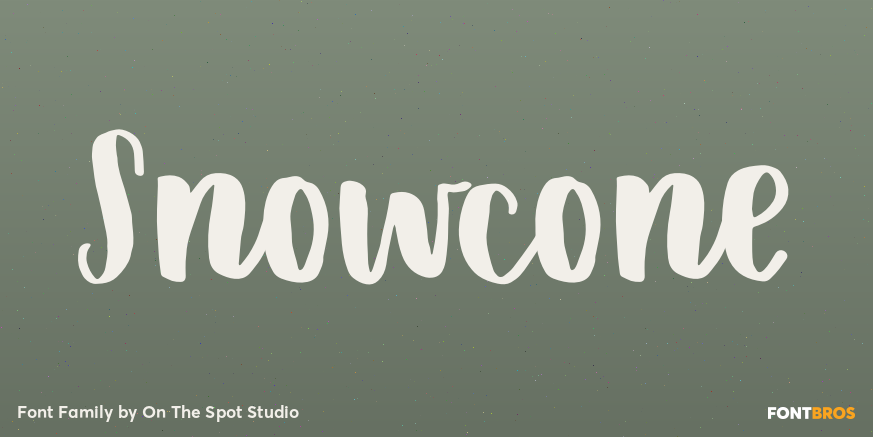
HomeFont BrosScripts: CasualSnowcone Scripts: Casual Snowcone FacebookXPinterestWhatsApp 1 of 1 About Snowcone Display and Script font in one. All caps is a lovely display face that looks great in branding.  DOWNLOAD ON FONT BROSThis font is sold and delivered by Font Bros. Font Canyon may earn a commission if you buy through this link. People also explored Blambot Casual Helena Font Valentine Rotherdam Signature Font Snowman Font Neuropol X Florises Font Cats and the City Font Simply Font 356 0 TagsSnowcone Font Previous articleUrbane RoughNext articleNakata LEAVE A REPLY Cancel reply Comment: Please enter your comment! Name:* Please enter your name here Email:* You have entered an incorrect email address! Please enter your email address here Website: Save my name, email, and website in this browser for the next time I comment. Personal Use Free Fibon Personal Use Free Read more about this font Multicolore Personal Use Free Read more about this font Old Linoleum Personal Use Free Read more about this font Cuttie Personal Use Free Read more about this font BLOG How to Cut Any Font on Cricut: Convert a Font to SVG (Free) Turn any font into a clean SVG so it cuts crisp on Cricut - a quick 3-step workflow using a free font-to-SVG tool. Modern Sans-Serif Fonts That Brands Love in 2025 Best Fonts for T-Shirt Design – Top 2025 Picks Where to Buy American Fonts Online in 2024